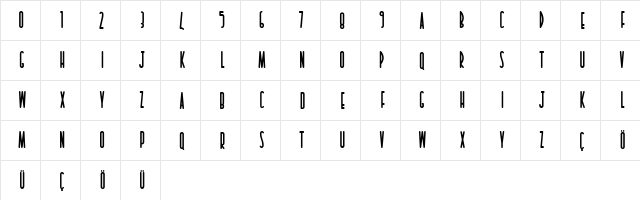
Bodrum Regular
| Foundry | Balkon Creative Studio |
| Designer | Onur Guvener |
Design Context for Bodrum Typeface
Bodrum offers clean, dependable letterforms without strong stylistic allegiance, making it a practical choice for designers who need flexibility.
Pro Tip: Pair Bodrum with a font of contrasting weight or personality to build a more expressive typographic hierarchy.